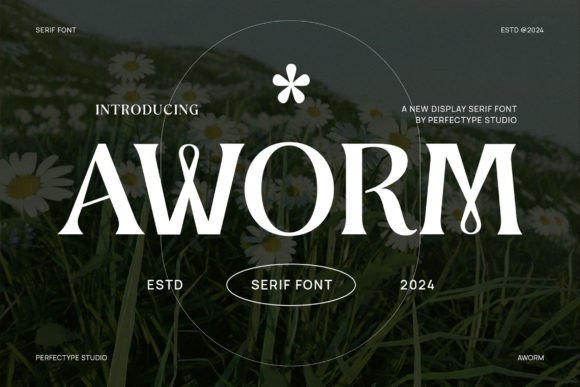
Aworm Font: Elevate Your Designs with Elegance and Modernity
In the world of typography, a well-crafted font can make all the difference in elevating your design to the next level. Introducing Aworm Font, an elegant serif typeface that seamlessly blends classic sophistication with modern style. This versatile font is designed to meet the diverse needs of designers, crafters, and businesses, making it an ideal choice for a wide range of projects.
The Perfect Blend of Elegance and Modernity
Aworm Font boasts a unique combination of traditional serif elements and contemporary design principles. The result is a typeface that exudes refinement, poise, and sophistication, while still feeling fresh and modern. This elegant font is perfect for designers who want to add a touch of luxury and class to their work.
One of the standout features of Aworm Font is its incredible versatility. Whether you’re working on branding projects, logos, wedding designs, social media posts, advertisements, product packaging, product designs, labels, photography, watermarks, invitations, stationery, or any other project, this font is sure to impress. Its high level of readability makes it an excellent choice for body text, while its stylish aesthetic ensures that your headings and titles will stand out.
Why Choose Aworm Font?
- Elegant Serif Typeface: Aworm Font features a beautiful serif design that adds a touch of sophistication to any project.
- Classy and Modern Style: This font seamlessly blends traditional and modern elements, making it perfect for designers who want to create unique and eye-catching designs.
- High Readability: Aworm Font is designed with readability in mind, making it perfect for body text, articles, and other written content.
- Versatile: From branding and logos to wedding designs and social media posts, Aworm Font is suitable for a wide range of projects and applications.
How to Use Aworm Font in Your Designs
Aworm Font is incredibly easy to use and can be incorporated into your designs in a variety of ways. Here are a few ideas to get you started:
- Branding and Logos: Use Aworm Font to create a sophisticated and memorable brand identity.
- Wedding Designs: Add a touch of elegance to your wedding invitations, programs, and other stationery with Aworm Font.
- Social Media Posts: Elevate your social media presence with stylish and readable text using Aworm Font.
- Product Packaging: Use Aworm Font to create eye-catching and informative product labels and packaging.
Tips for Getting the Most Out of Aworm Font
To truly get the most out of Aworm Font, here are a few tips to keep in mind:
- Experiment with Font Sizes: Aworm Font looks great in a variety of font sizes, from large headings to smaller body text.
- Play with Color: Don’t be afraid to experiment with different colors and textures to add depth and interest to your designs.
- Mix and Match with Other Fonts: Aworm Font pairs well with a variety of other fonts, so don’t be afraid to get creative and try out different combinations.